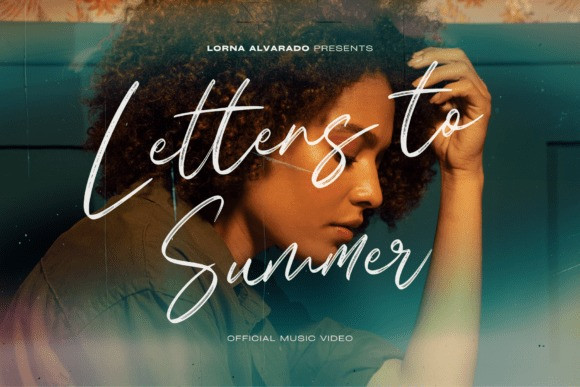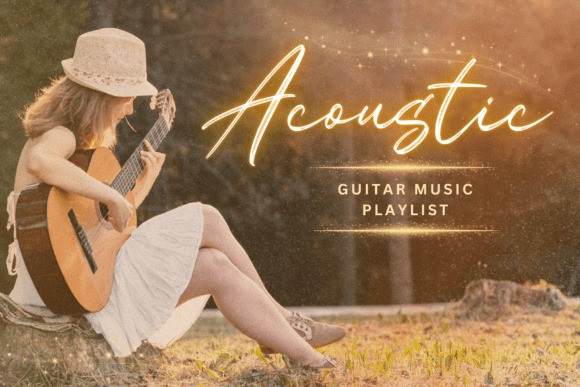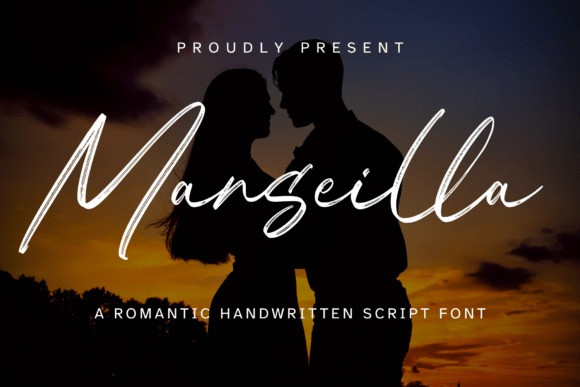
Marseilla Script Font
Marseilla Script Font – a refined script font that infuses your designs with an essence of romance and elegance. Drawing inspiration from the effortless charm of classic calligraphy and charged with a contemporary flair, Marseilla is a testament to artistic dexterity and aesthetic finesse. With its gentle curves, poised strokes and intricate detailing, Marseilla is the perfect font choice for crafting captivating wedding invitations, exuding sophistication in branding elements, defining bold logos, packaging with an edge, and composing chic, stylish quotes. Unleash the touch of artistry that Marseilla promises in every stroke.